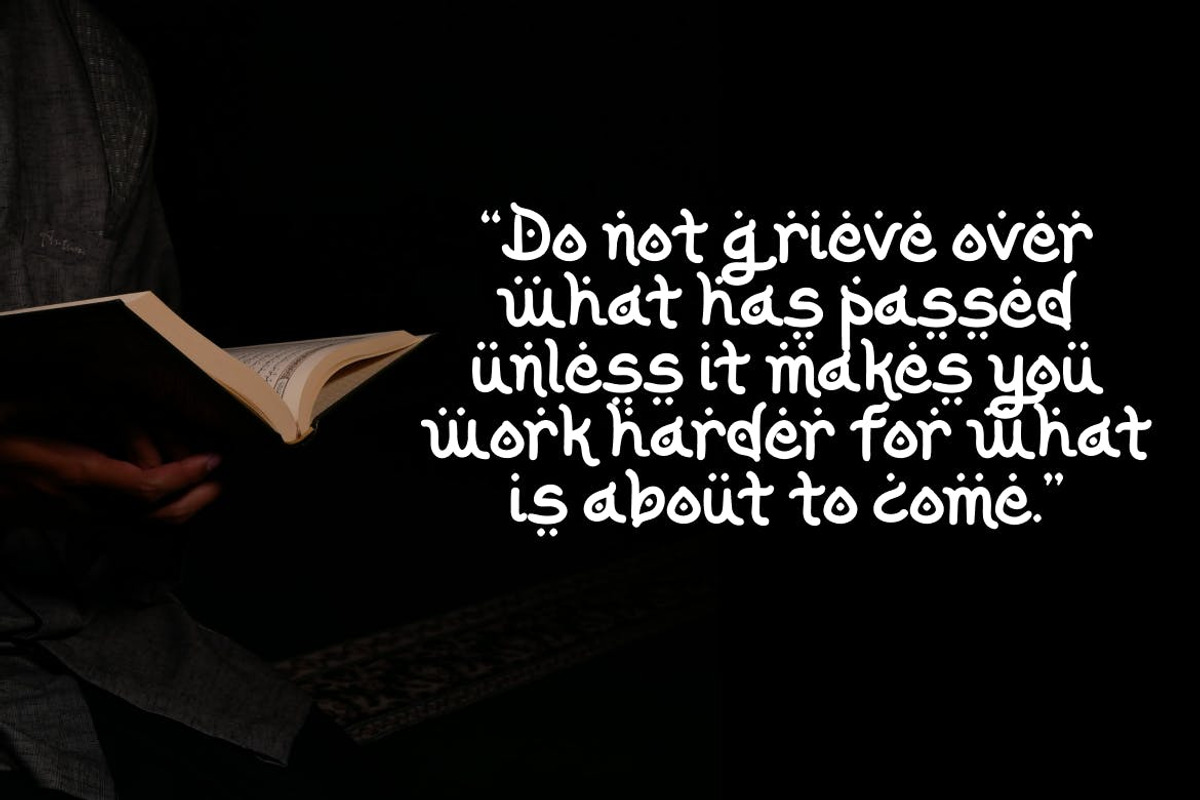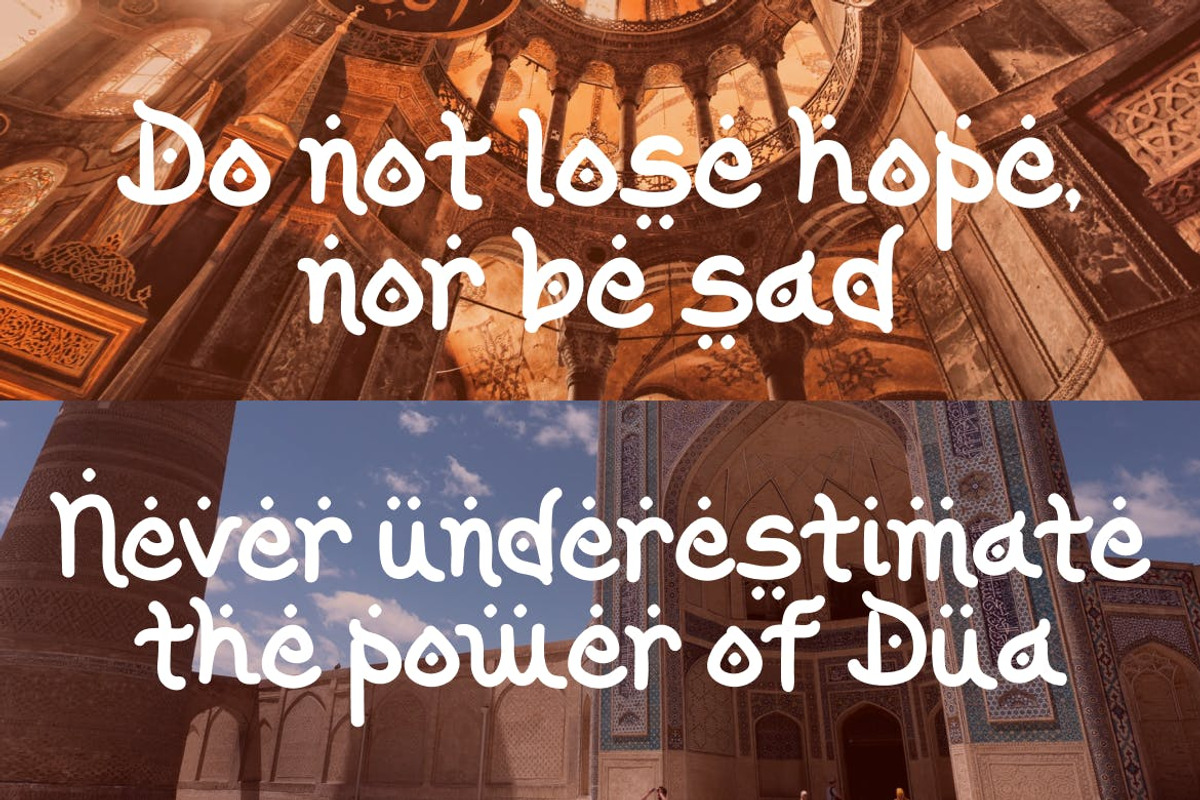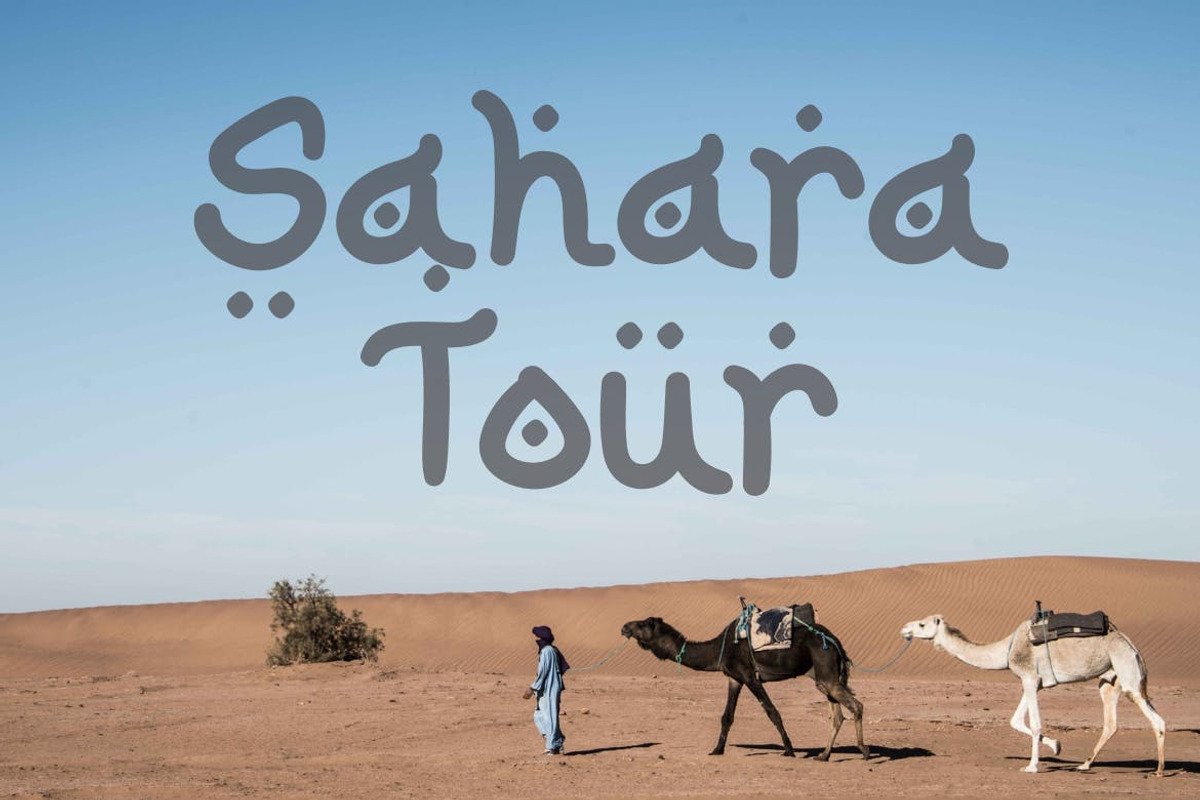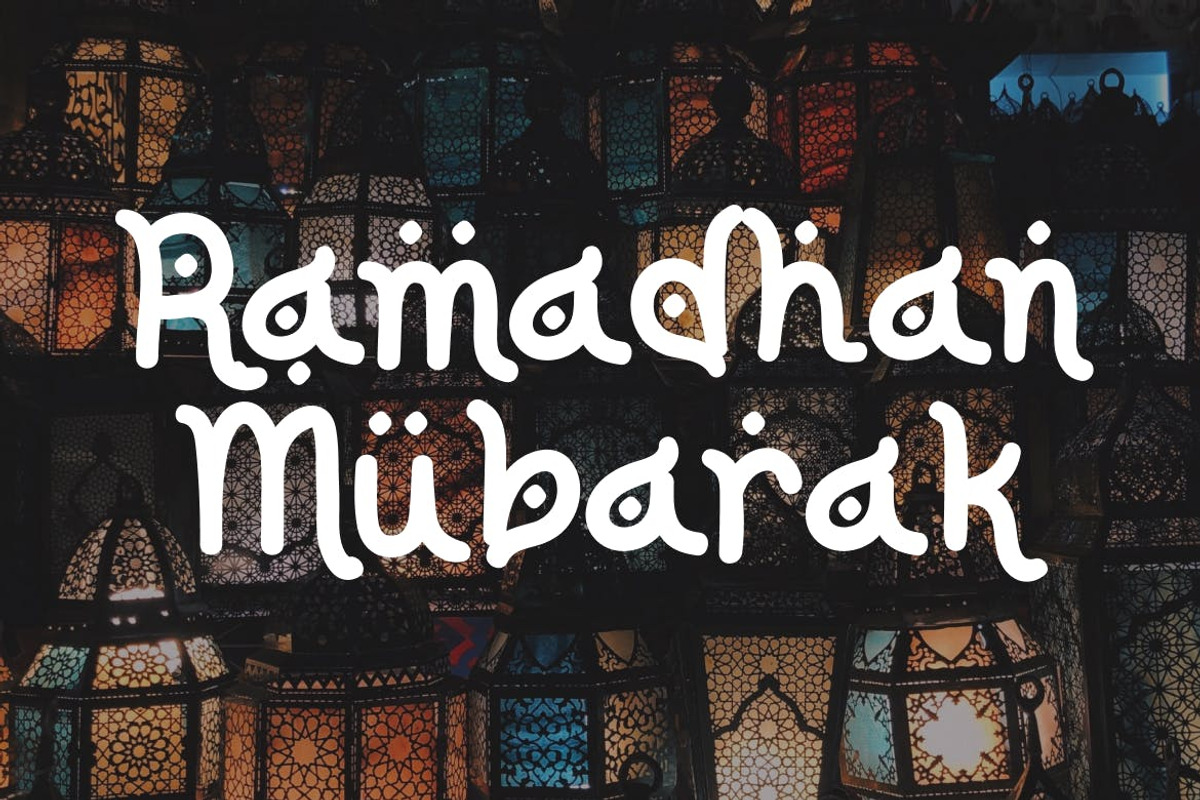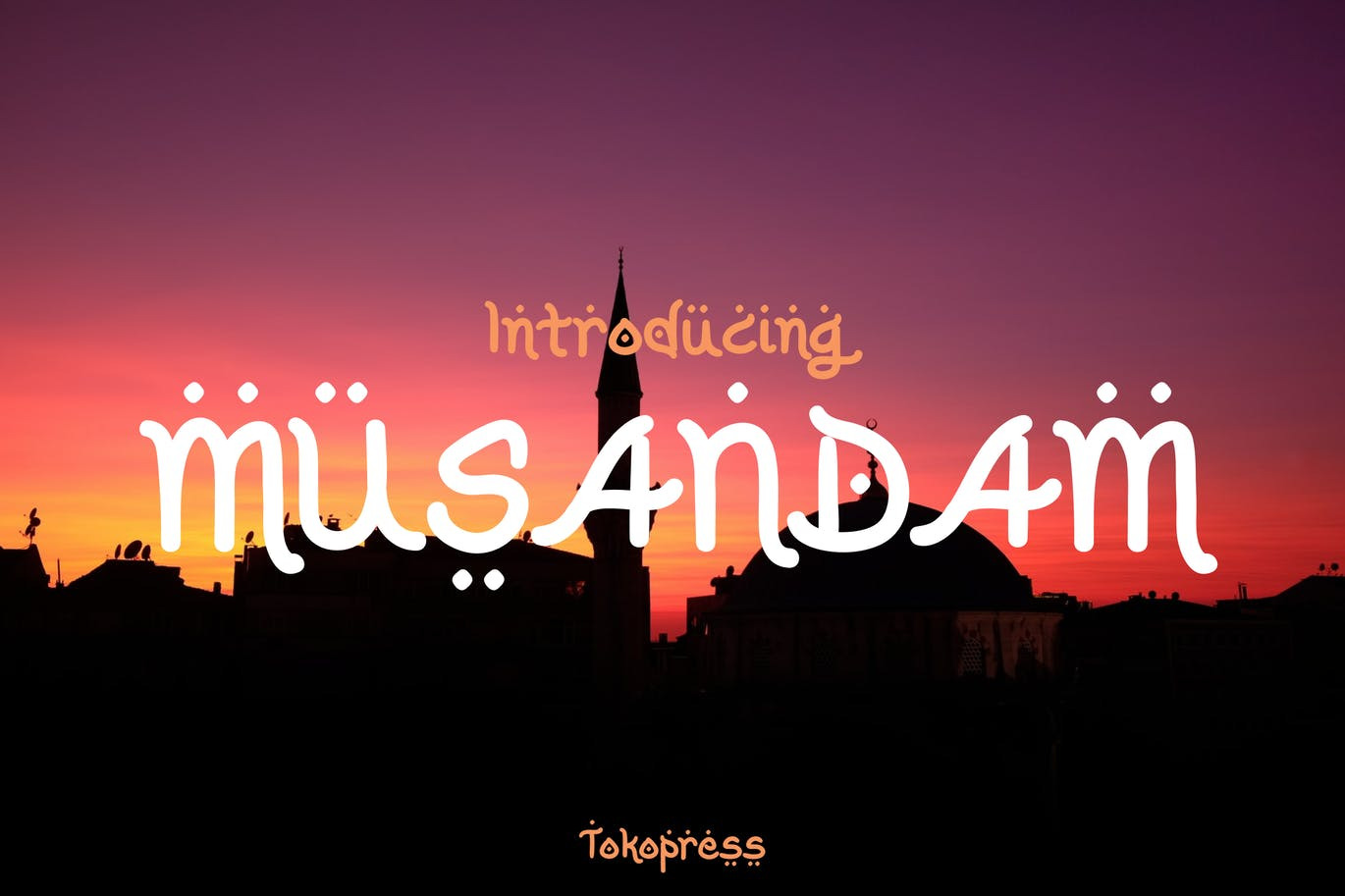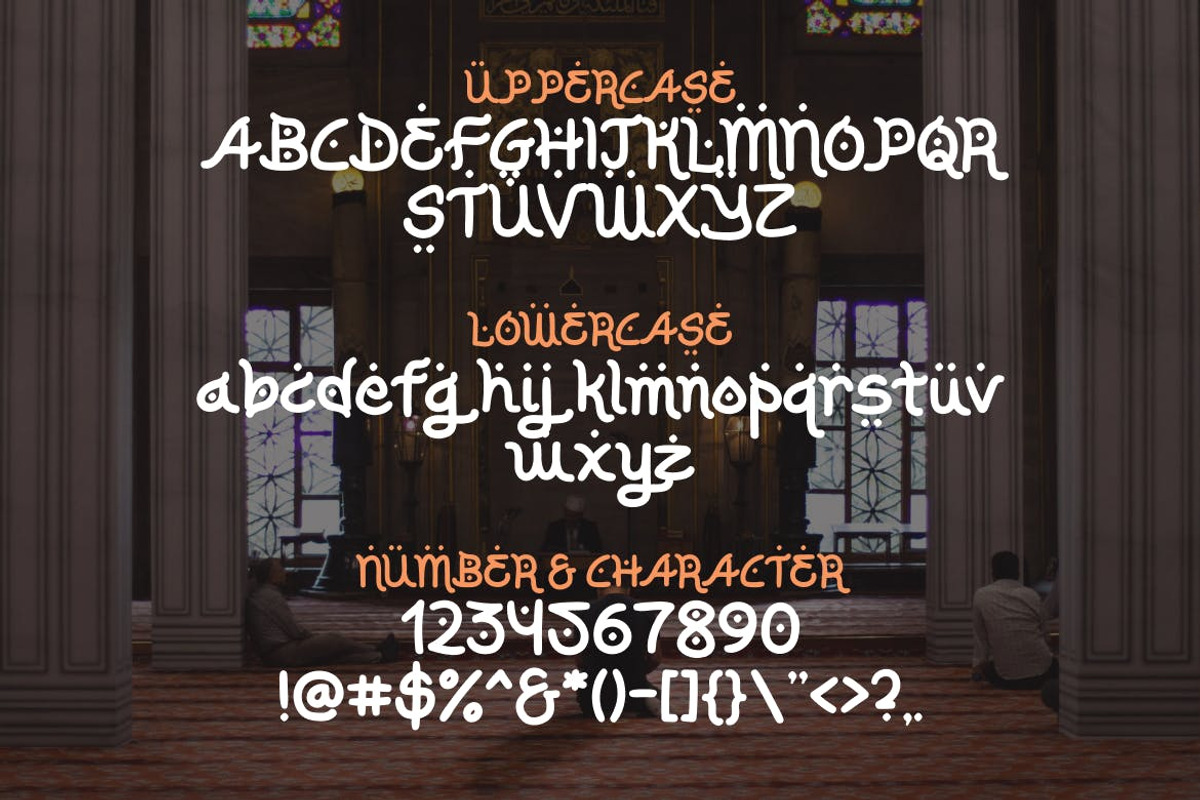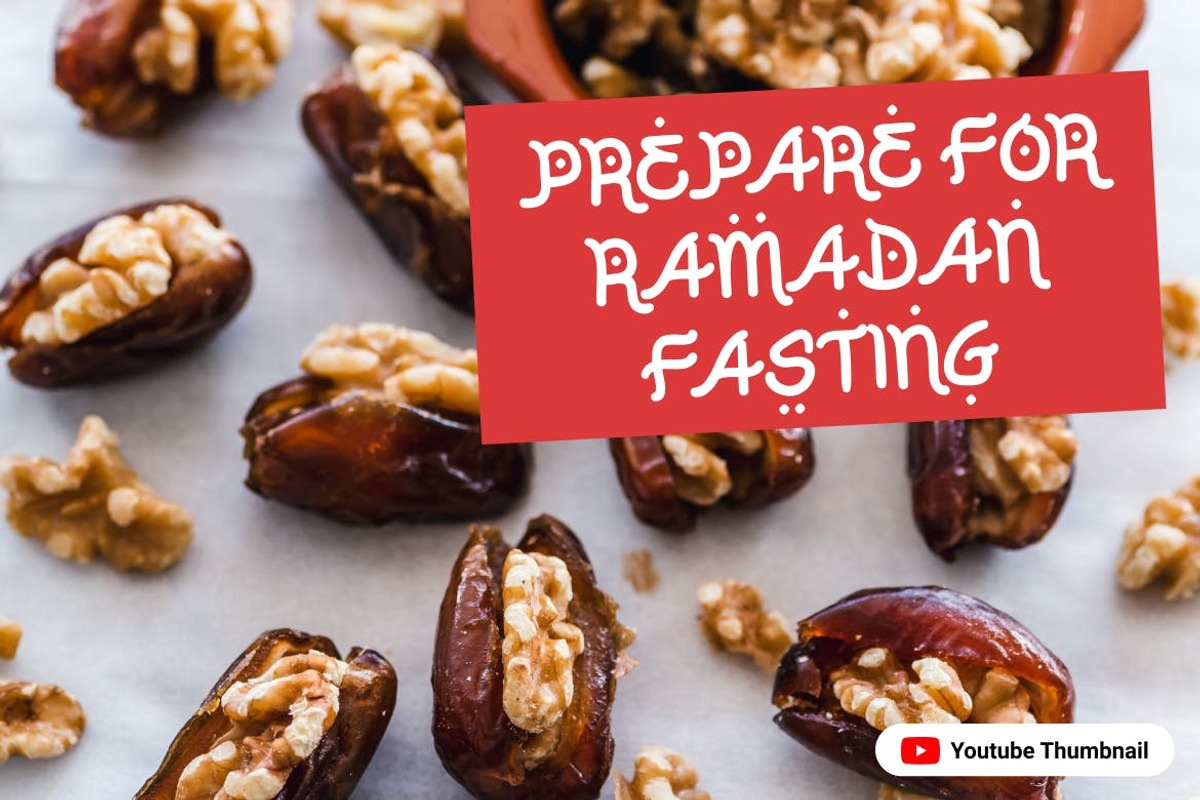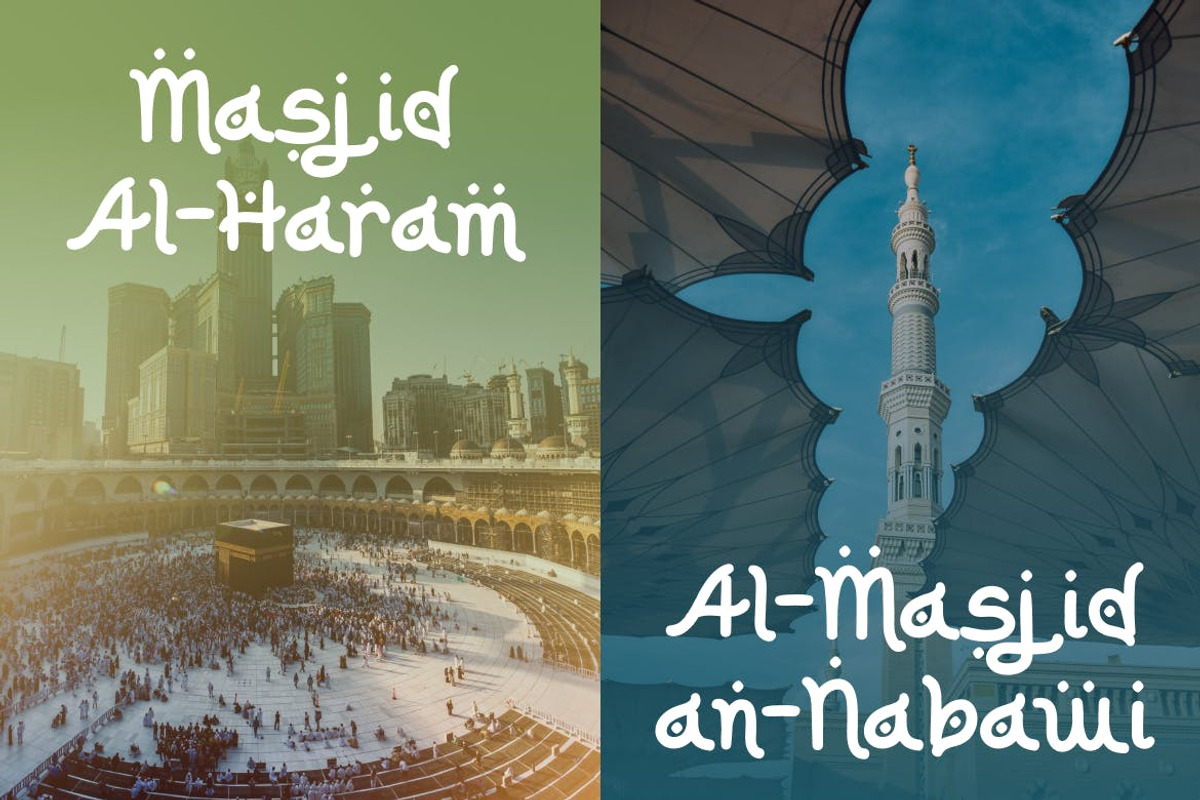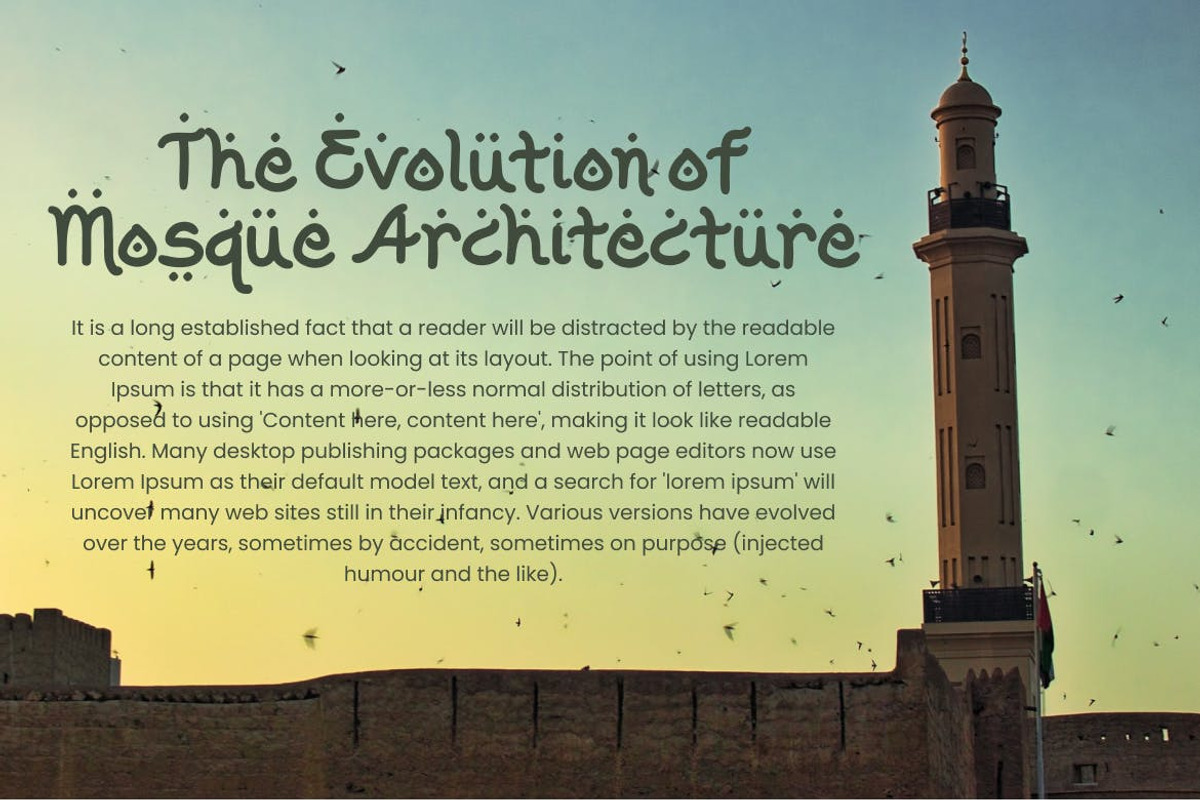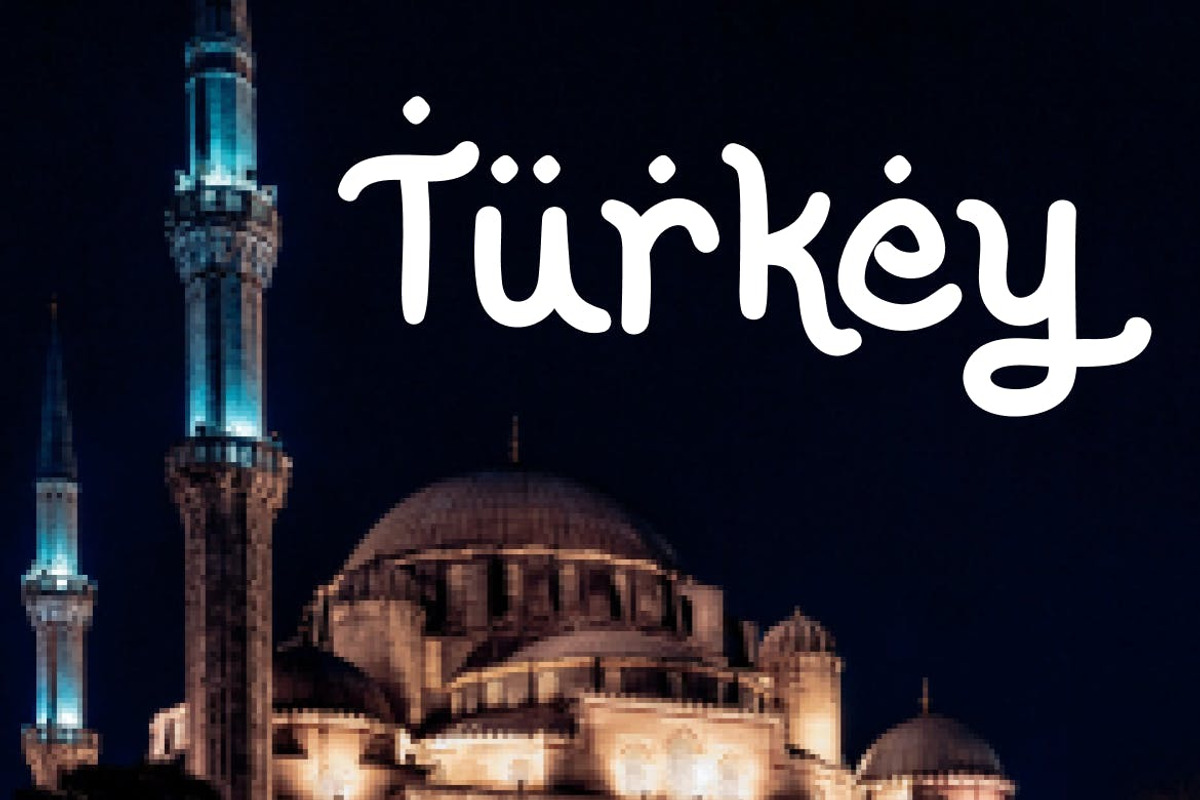
Musandam - Arabic look font
With Arabic-Esque looking font, it will enhance the middle east reach for your audience.
Suit perfectly for Arabic and middle east market audiences, poster, movie title, Arabic restaurant/ cafe menu, magazine, youtube covers, youtube thumbnails, social media page covers and so on...
- Basic Latin A-Z and a-z, numbers, punctuations